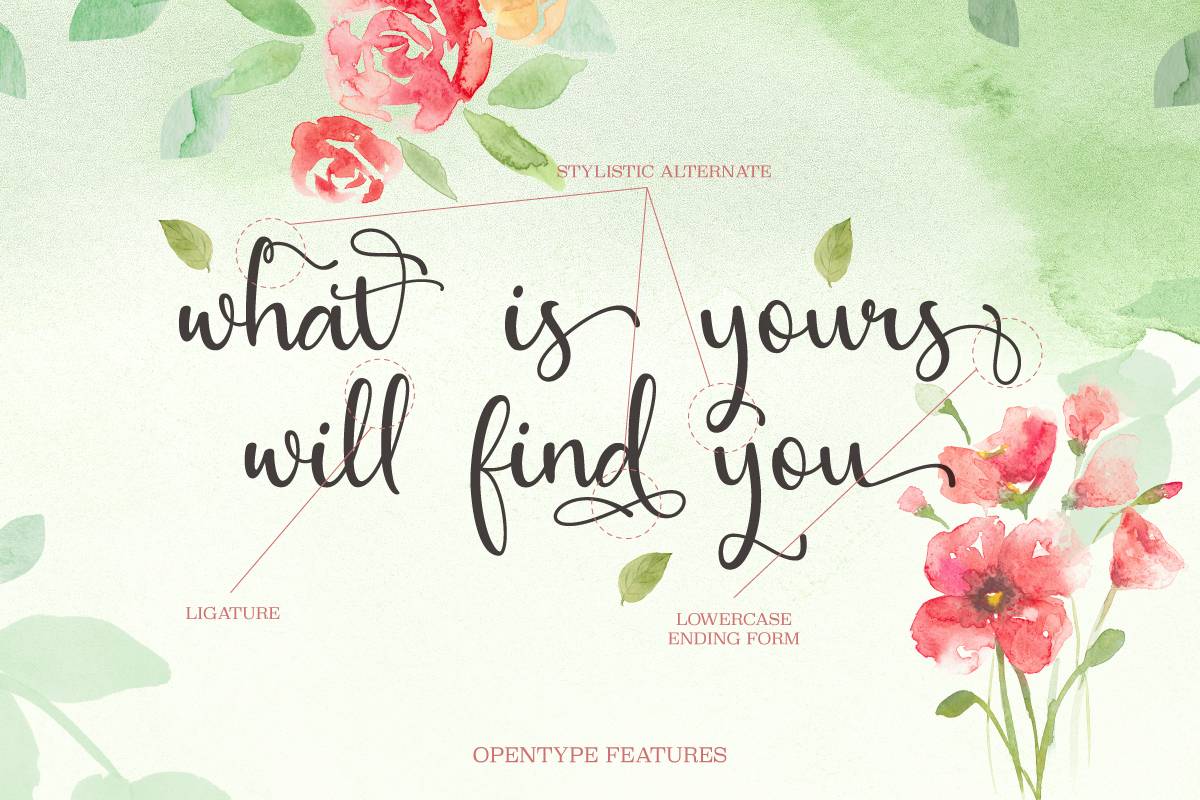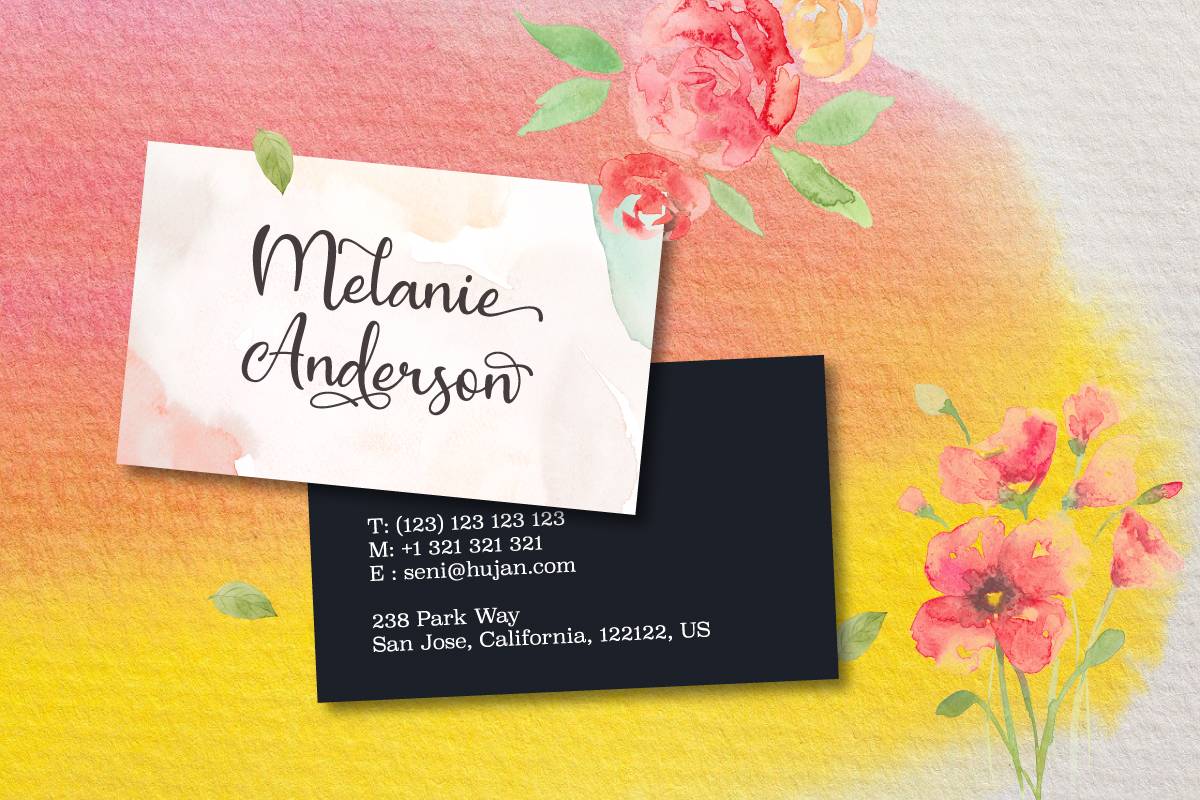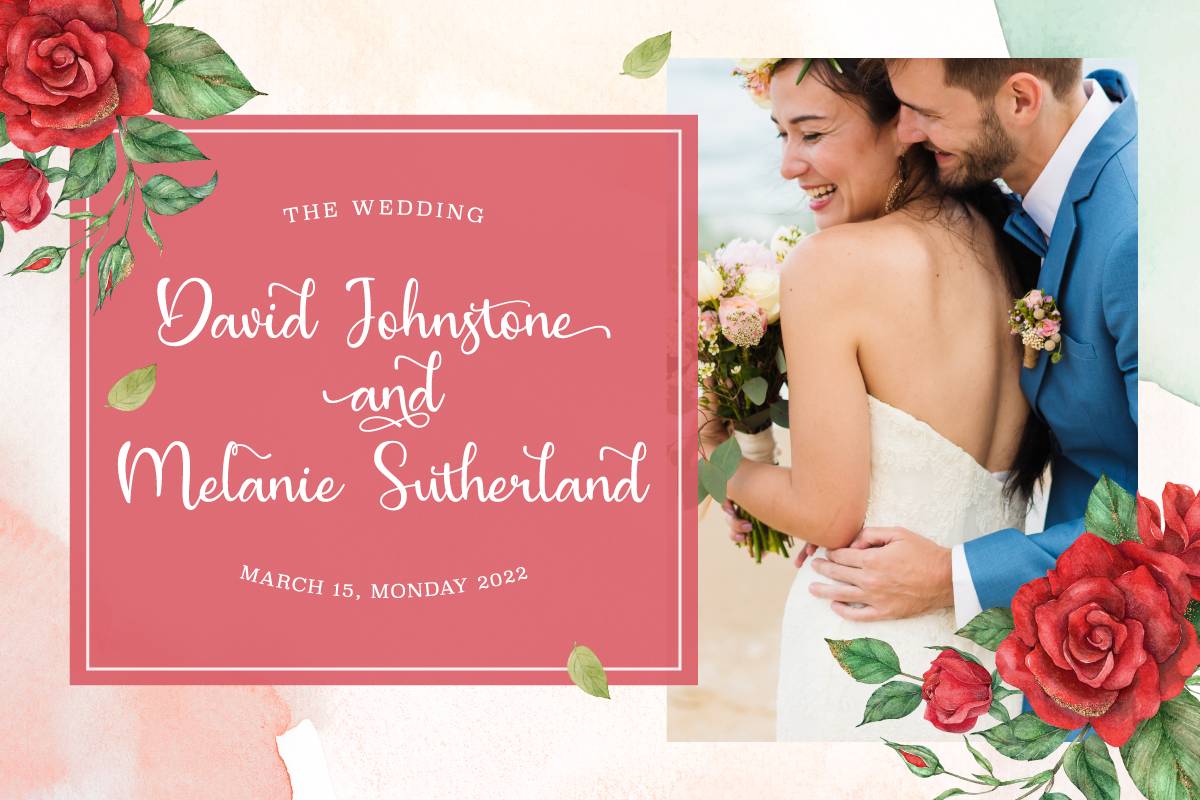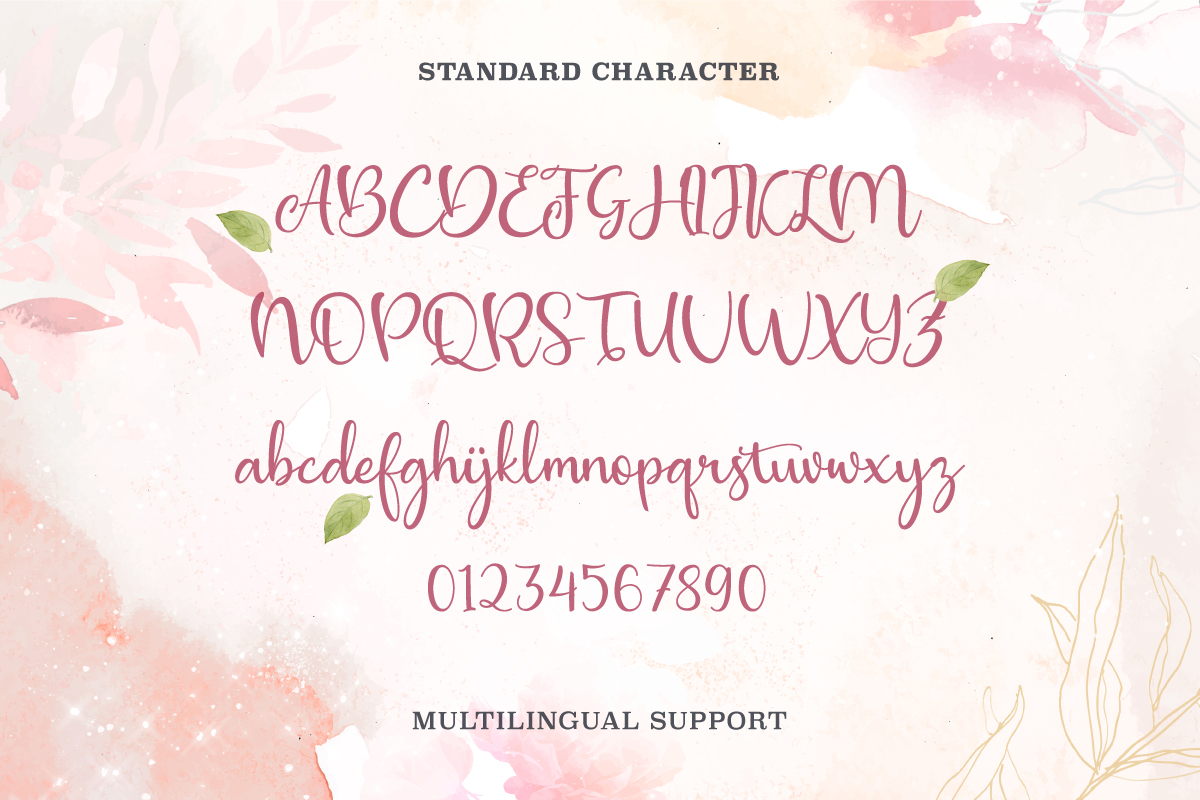
Allana Beauty is an elegant script font with a delicate, hand-lettered style that combines smooth, flowing strokes and charming letterforms. Its light weight and graceful curves make it perfect for luxury branding, invitations, and feminine design projects, adding a touch of sophistication and warmth. This font works beautifully in headlines and decorative uses where a refined, personal feel is desired.
Allana Beauty Font
About Allana Beauty Font